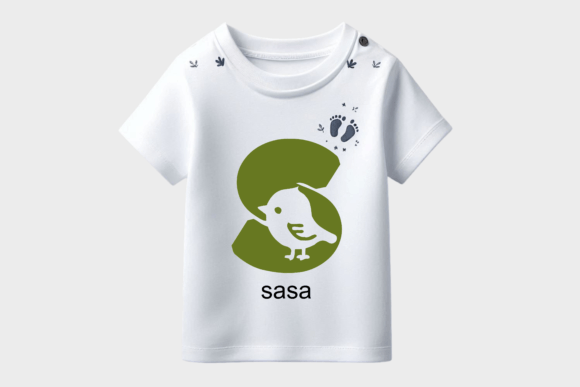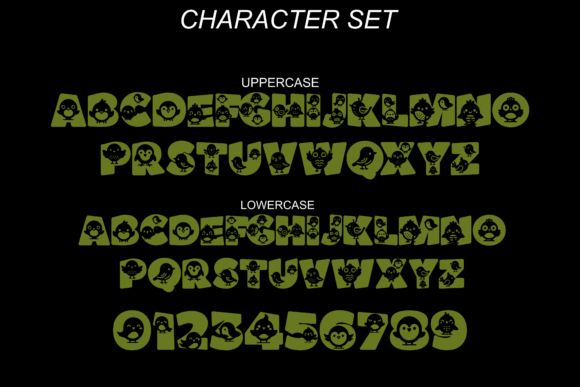
Unlock the Magic of Bird Font: Elevate Your Designs with Elegance and Curiosity
Immerse yourself in the captivating world of typography with the enchanting Bird font. This unique typeface masterfully blends allure and mystery, infusing your designs with a magnetic charm that commands attention. Each specific element of the Bird font has been delicately crafted to enhance your creative stories, emitting a vibrant enthusiasm and warmth that shatters conventions.
The Allure of Bird Font: A Perfect Blend of Elegance and Curiosity
The Bird font is an intriguing fusion of elegance and curiosity, making it an ideal choice for designers and crafters looking to add a touch of sophistication and whimsy to their projects. With its distinctive and eye-catching design, this font is sure to enthrall your viewers and leave a lasting impression. Whether you’re working on a branding project, a website, or a craft, the Bird font is the perfect tool to help you stand out from the crowd.
Key Features of Bird Font
- Unique and Distinctive Design: The Bird font boasts a one-of-a-kind design that sets it apart from other typefaces. Its intricate details and elegant lines make it perfect for projects that require a touch of sophistication.
- Versatile and Adaptable: The Bird font is incredibly versatile and can be used in a wide range of projects, from branding and advertising to web design and crafting.
- Easy to Read: Despite its ornate design, the Bird font is surprisingly easy to read, making it perfect for body text and headlines.
- Highly Customizable: The Bird font comes with a range of customization options, allowing you to tailor it to your specific needs and preferences.
How to Use Bird Font in Your Designs
Using the Bird font in your designs is easy and straightforward. Here are a few tips to get you started:
- Pair it with Neutral Backgrounds: The Bird font looks stunning against neutral backgrounds, allowing its intricate details to take center stage.
- Experiment with Colors: Don’t be afraid to experiment with different colors and gradients to add depth and visual interest to your designs.
- Mix and Match: Combine the Bird font with other typefaces to create unique and visually appealing typography.
Benefits of Using Bird Font
So, why choose the Bird font for your next project? Here are just a few benefits of using this captivating typeface:
- Adds a Touch of Elegance: The Bird font adds a touch of sophistication and elegance to any project, making it perfect for high-end brands and luxury products.
- Boosts Creativity: The Bird font’s unique design and versatility make it an excellent choice for creative projects, such as art journals and scrapbooking.
- Enhances Brand Identity: The Bird font can help you establish a strong brand identity and differentiate your brand from competitors.
Inspirational Ideas for Using Bird Font
Still looking for inspiration? Here are a few ideas to get you started:
- Create a Stunning Logo: Use the Bird font to create a unique and memorable logo that reflects your brand’s personality.
- Design a Beautiful Website: The Bird font is perfect for web design, adding a touch of elegance and sophistication to your website.
- Make a Statement with Stationery: Use the Bird font to create stunning stationery, such as business cards, letterheads, and envelopes.
Venture into the intriguing world of Bird font and discover a new level of typographic excellence. With its captivating design, versatility, and customization options, this font is sure to enthrall your viewers and elevate your designs to new heights. So why wait? Unlock the magic of Bird font today and inject your artistic projects with an infectious energy that commands attention.